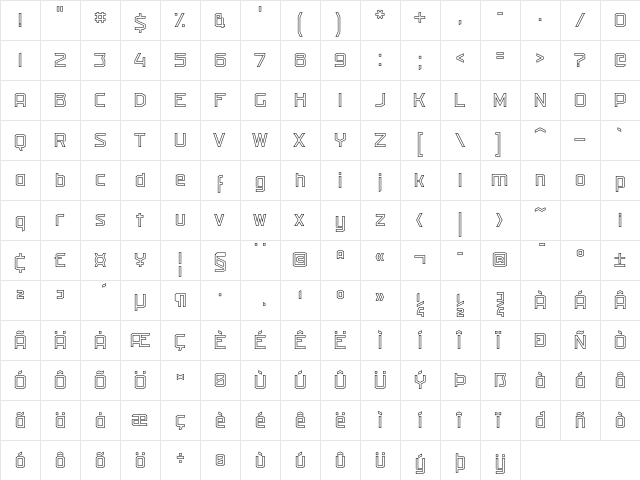
Militech Outlined
| Foundry | Adam Rucki |
| Designer | Adam Rucki |
Design Context for Militech Typeface
Militech has a distinctly futuristic character, with geometric precision and clean angles that feel at home in technology, gaming, and sci-fi contexts.
Pro Tip: Use Militech in combination with a neutral sans for body text. Let it define the brand voice in headlines while keeping reading comfortable elsewhere.